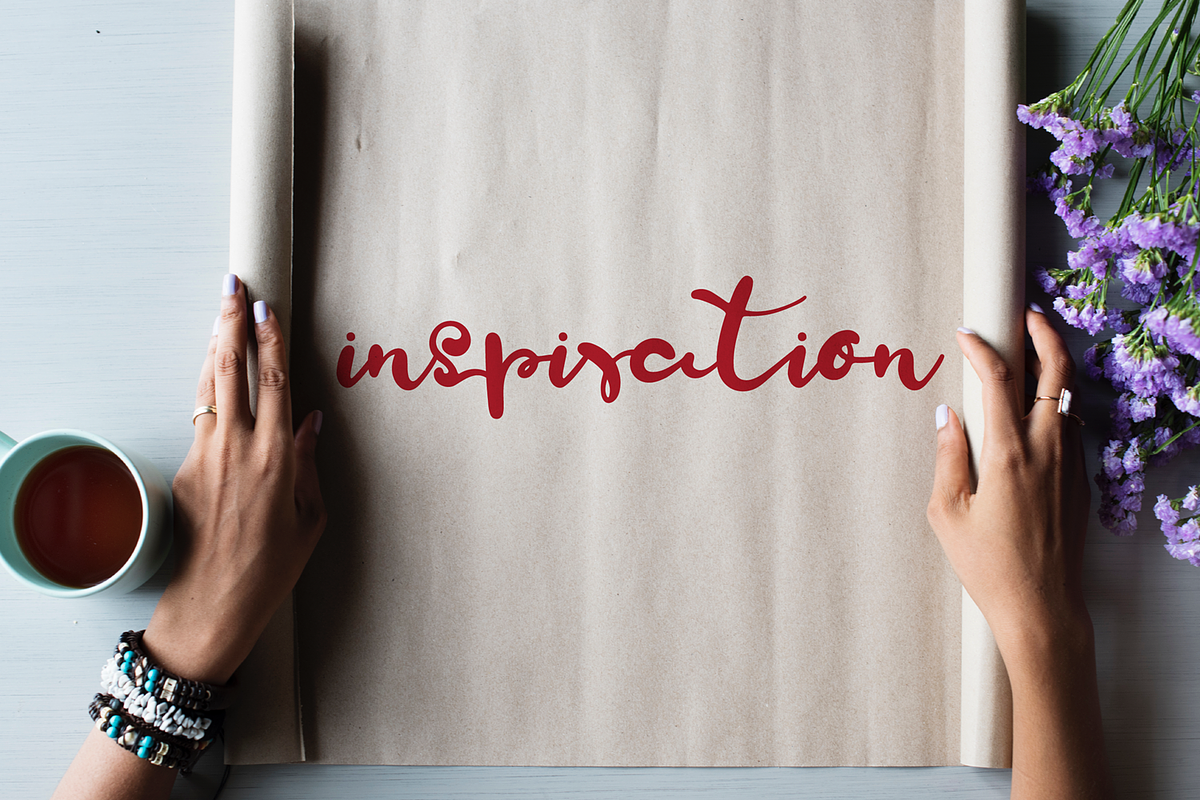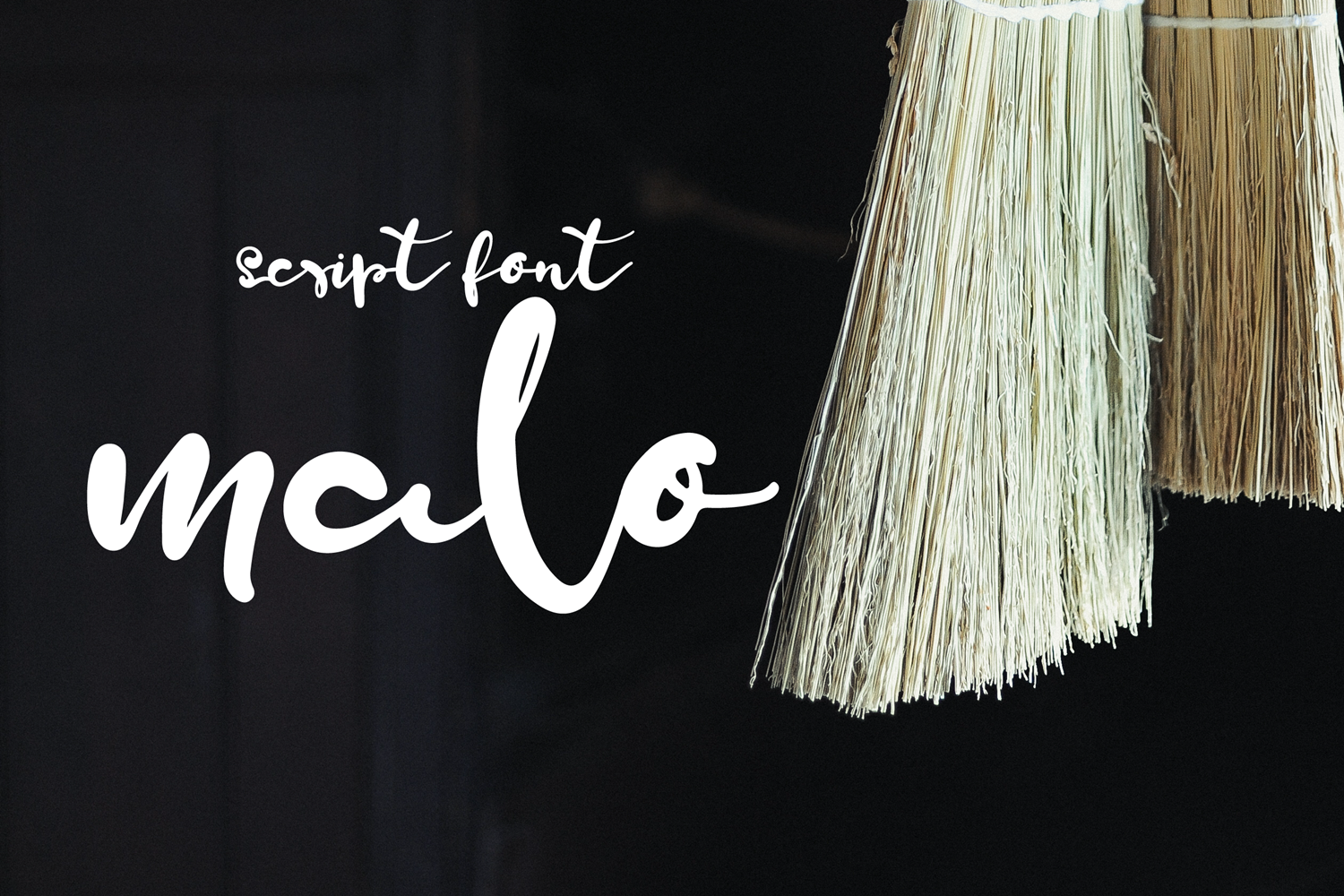
in Samoan language, malo means "hi" the name inspired from my friends in beautiful small island Samoa. This fresh script font is the first entry in my shop, hand lettered and kernned in such a way that gives a feeling of a brush in your hand and flowing freely on the canvas,
I have made some double letters alternatives which gives a bit feeling of some different for the next letter when you type.